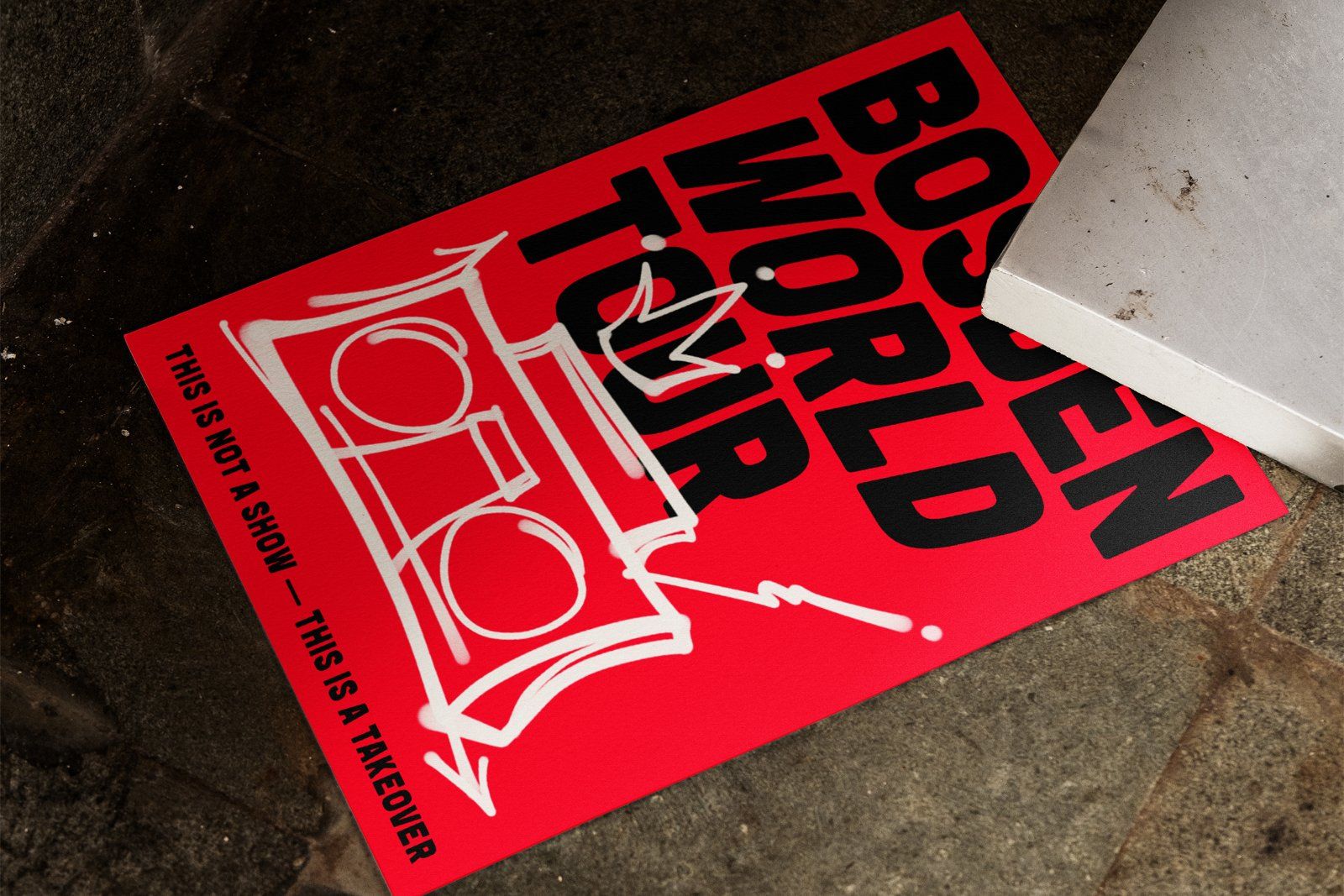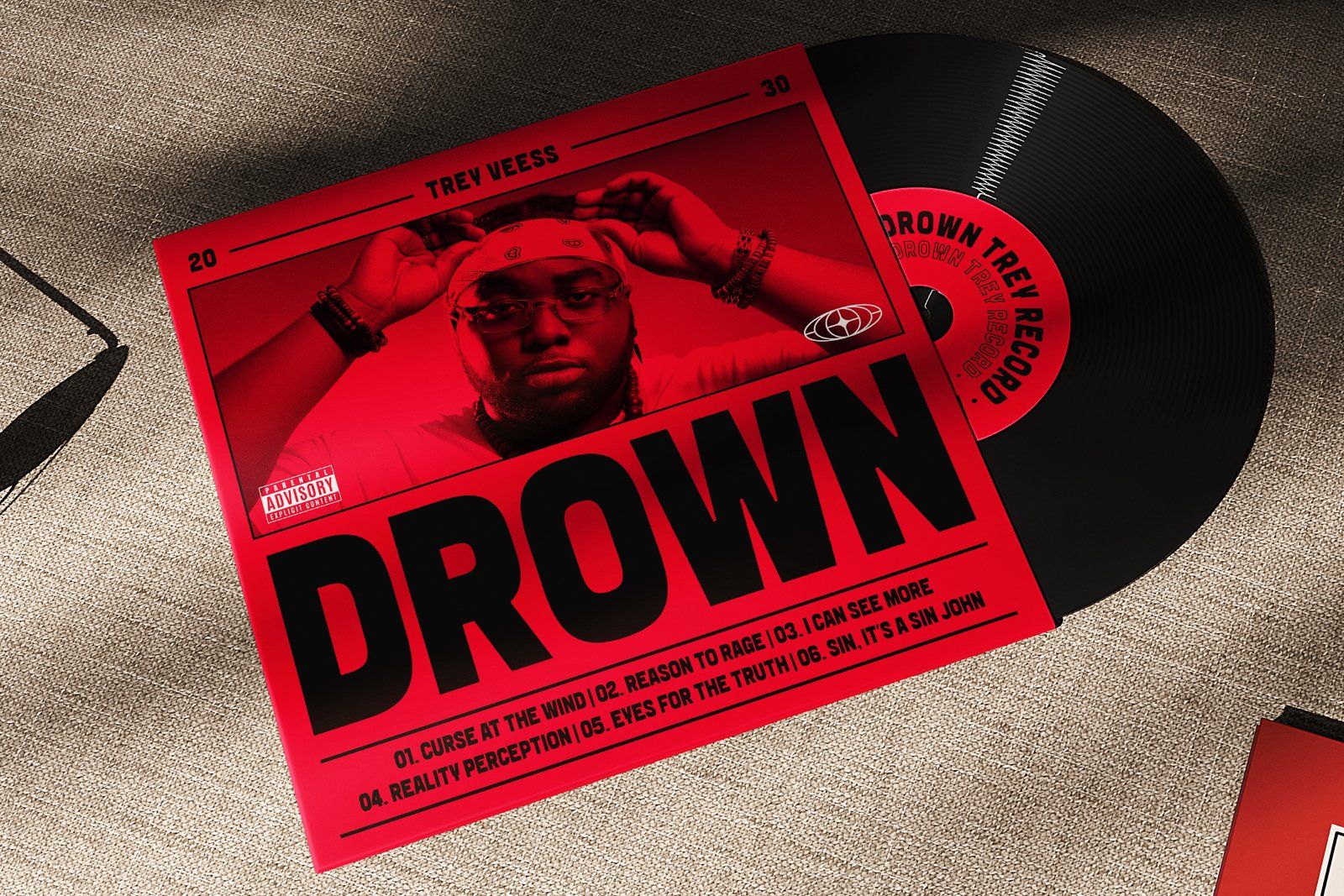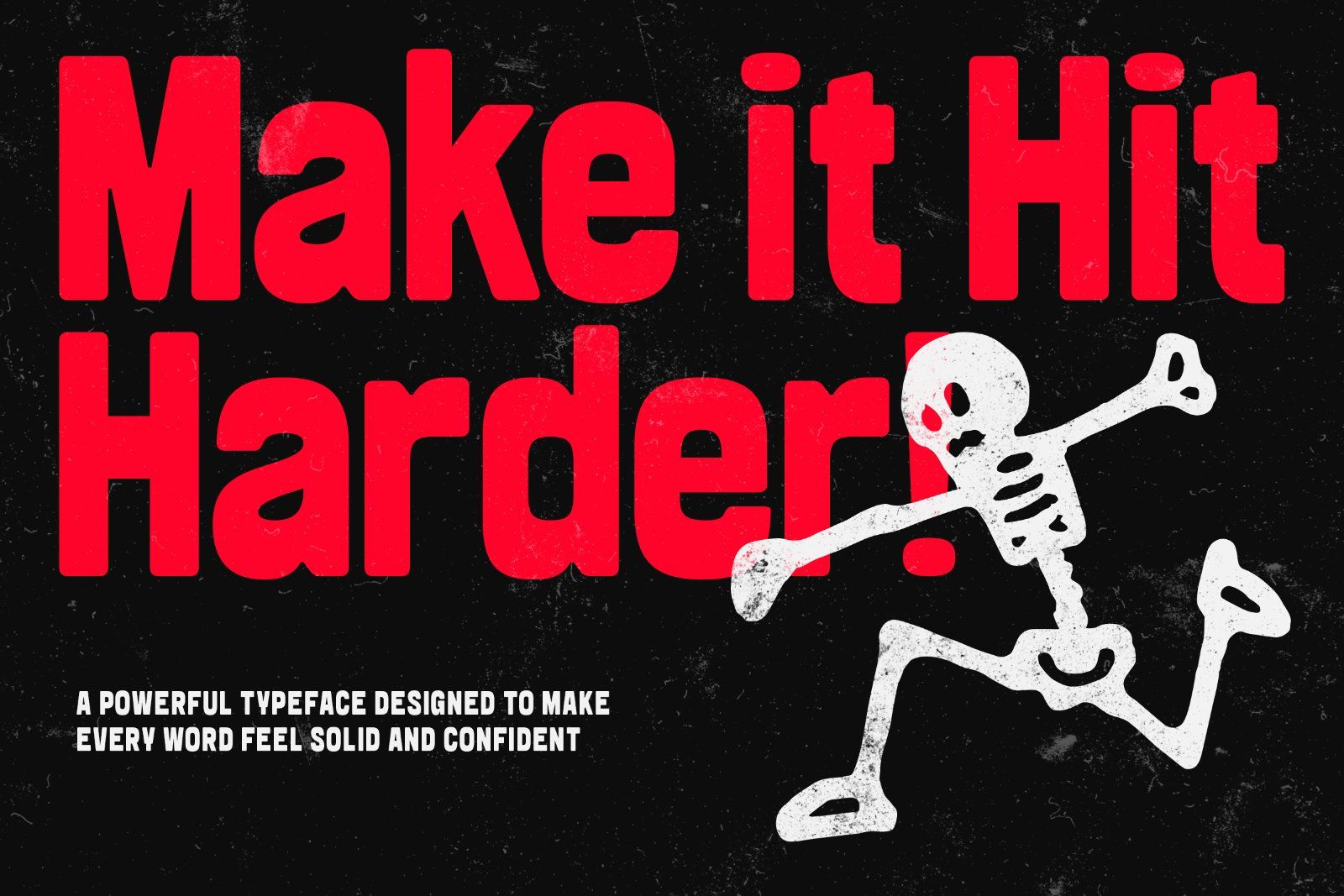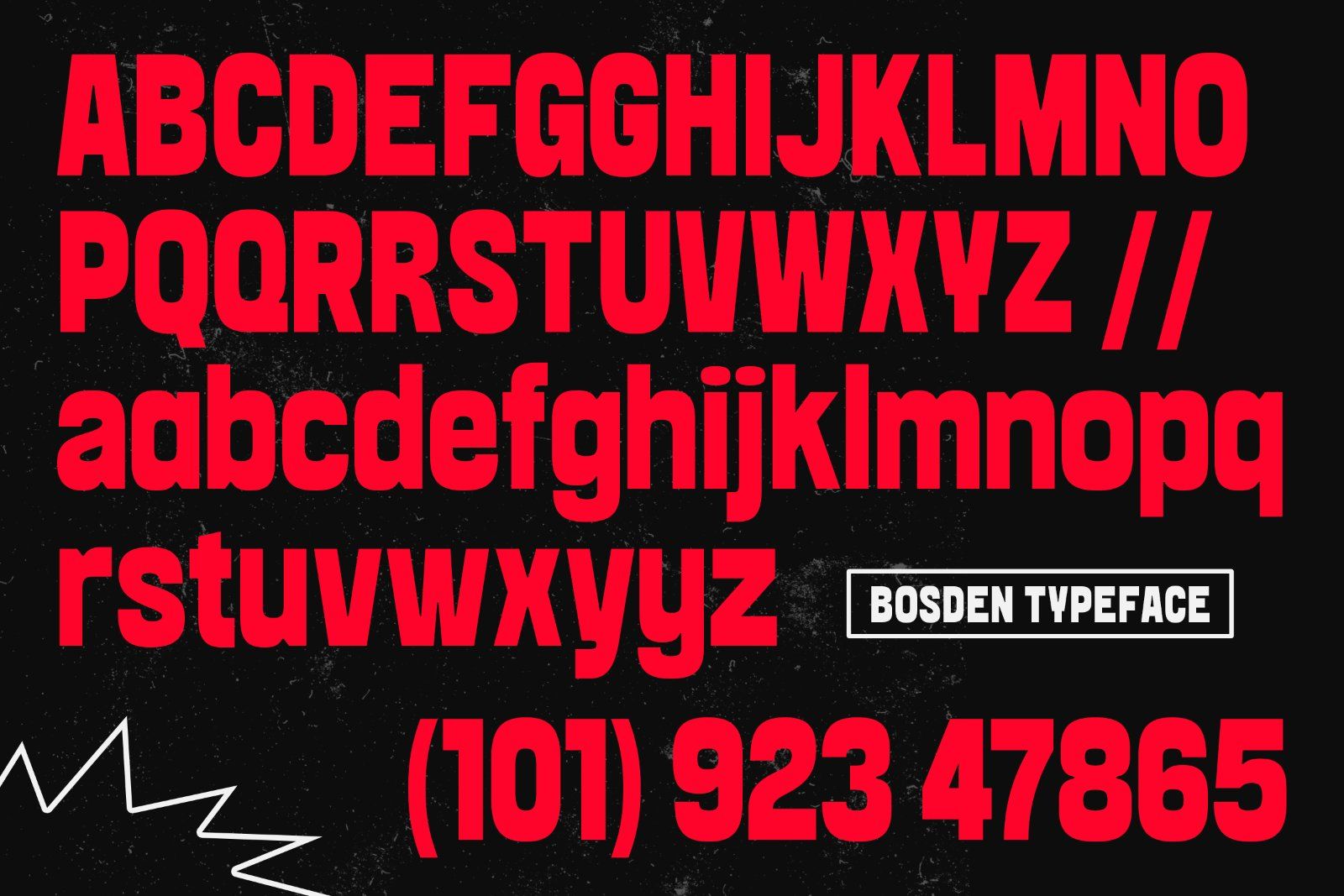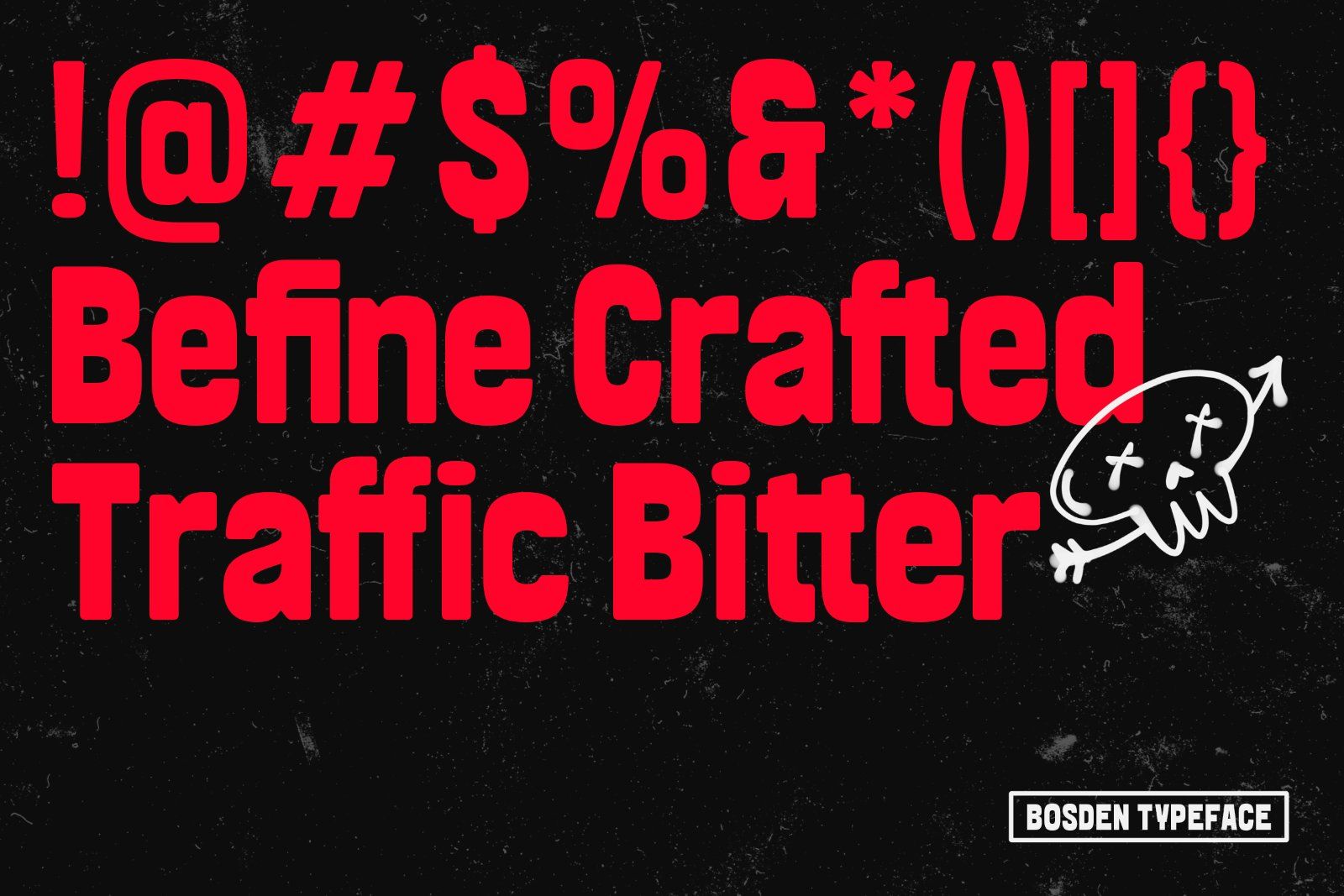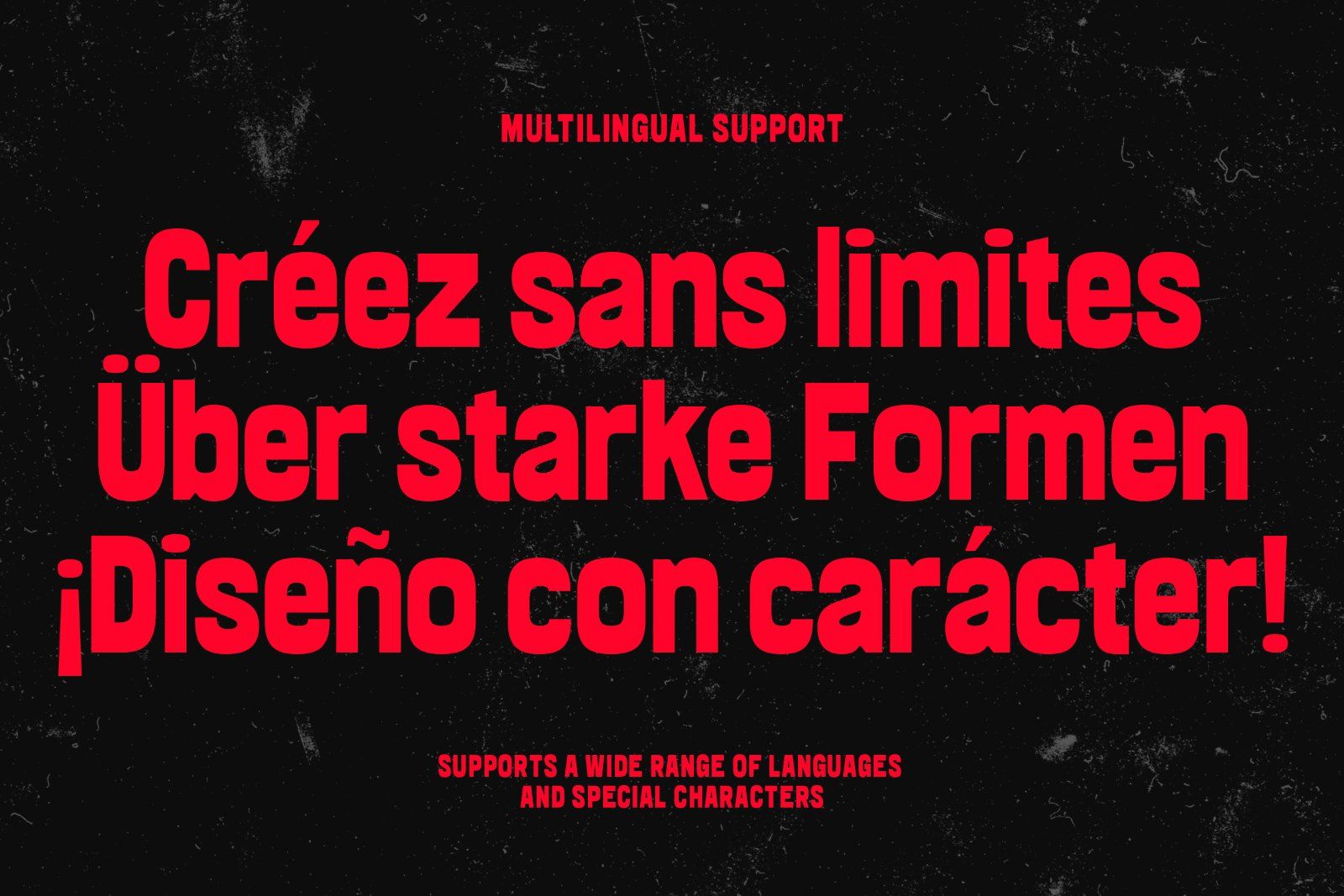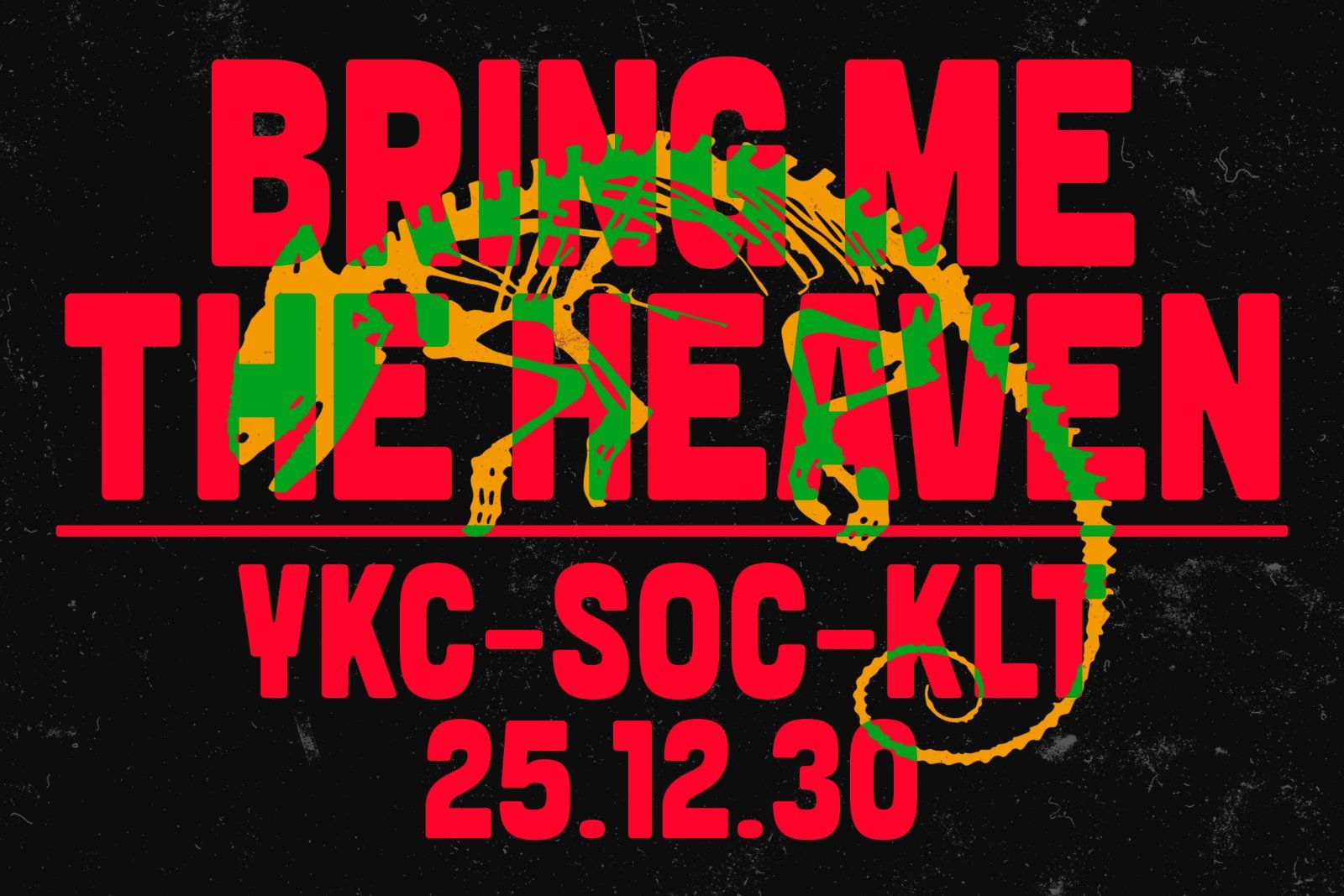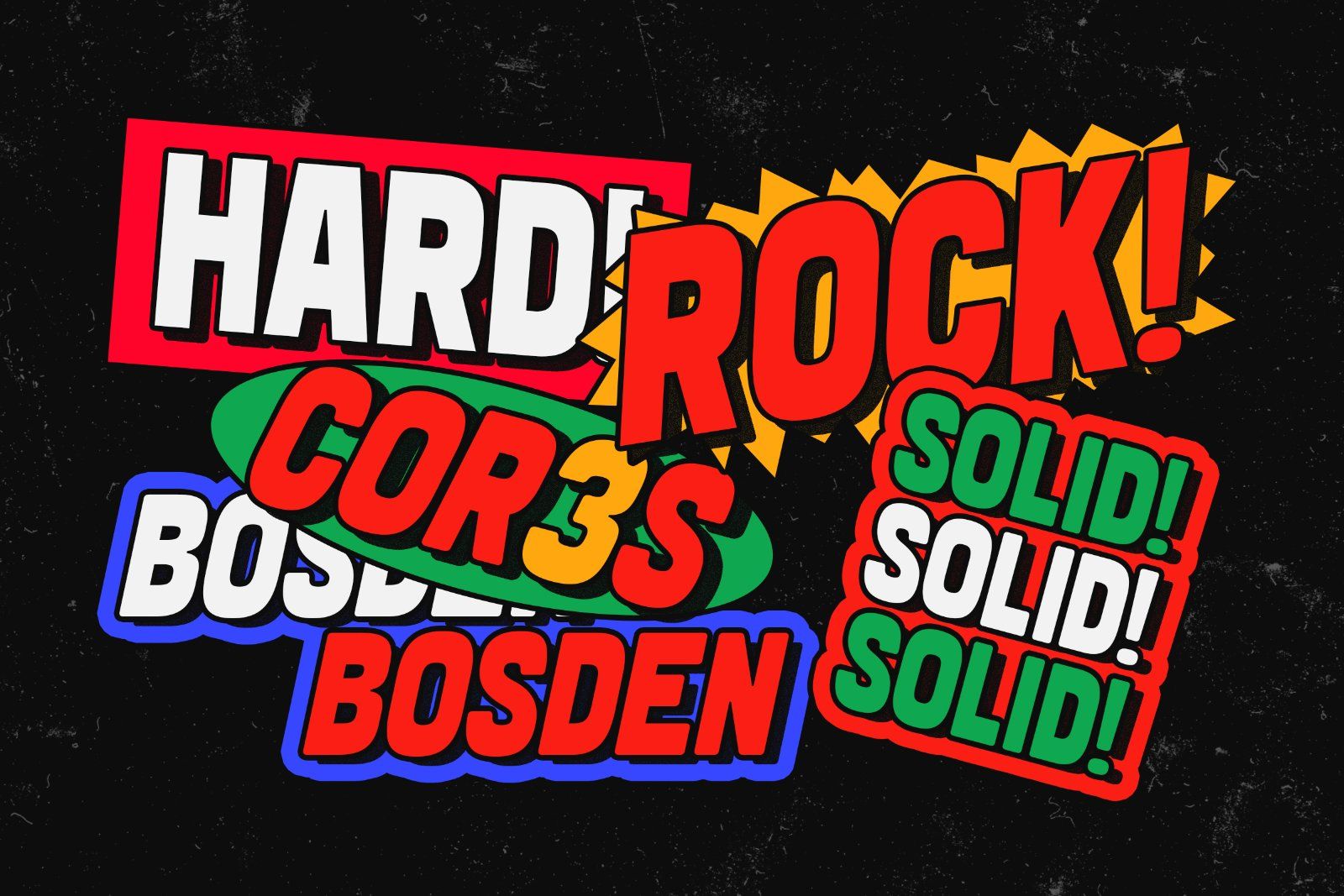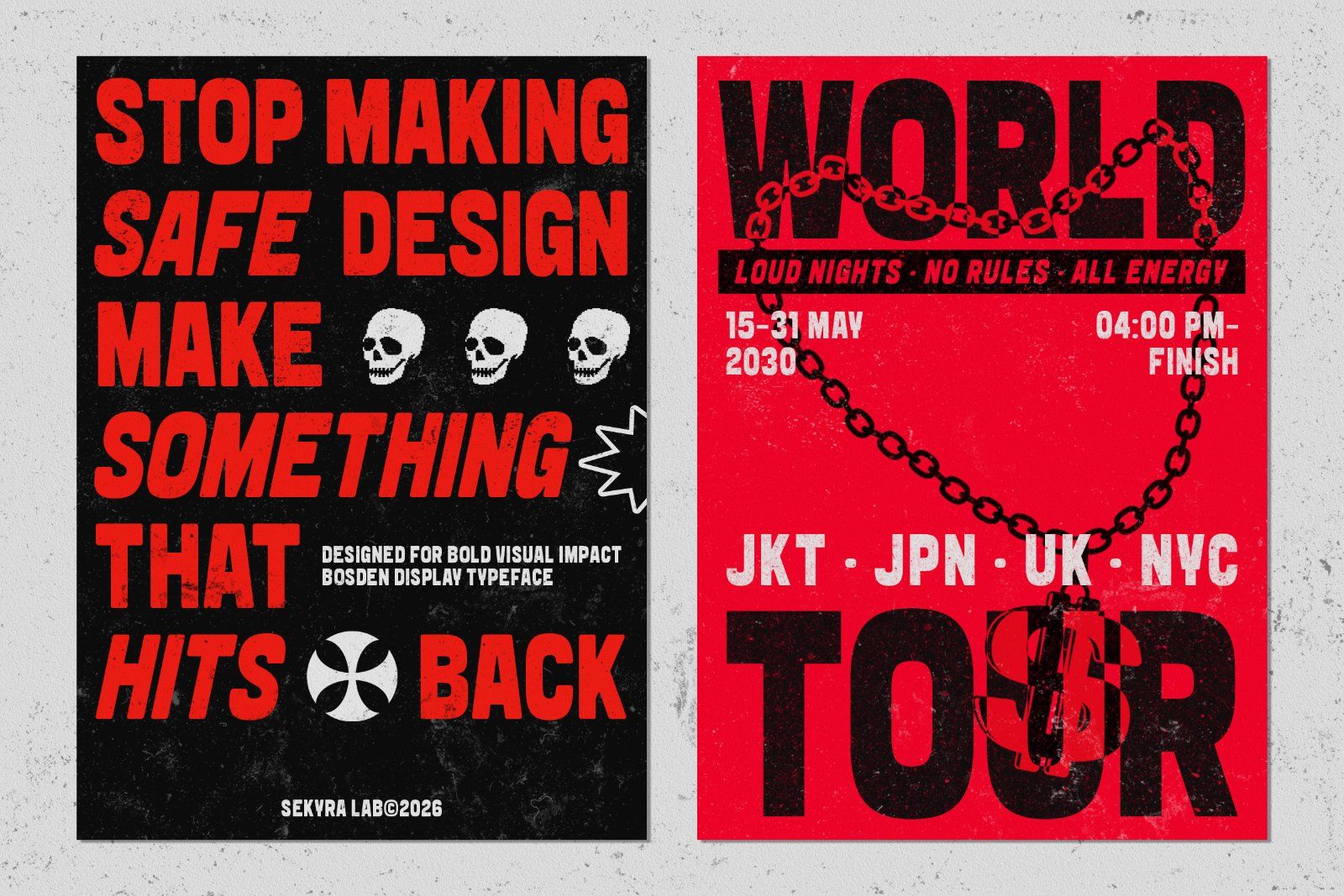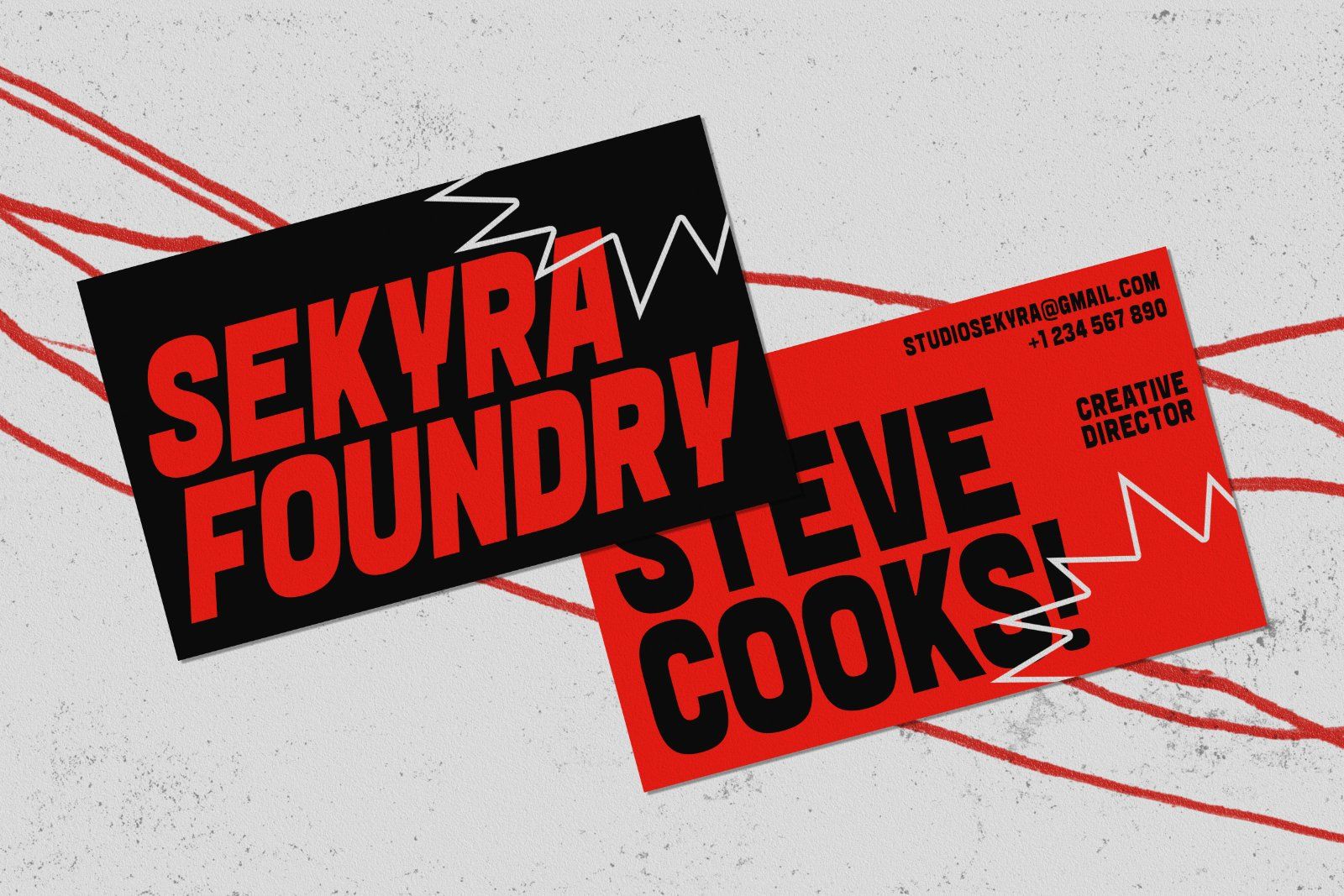
Bosden is a bold and powerful display sans serif designed to deliver strong visual impact and confident presence. With its condensed proportions, solid structure, and clean geometric forms, Bosden is built for designs that need to stand out and hit hard.
This typeface comes with four versatile styles: Regular, Rounded, Oblique, and Rounded Oblique. From sharp and solid to smooth and dynamic, Bosden gives you the flexibility to explore different tones while maintaining a consistent bold identity.
Whether you’re creating posters, branding, streetwear graphics, music artwork, or editorial layouts, Bosden ensures your typography feels loud, clear, and unapologetically strong.
Its clean and modern construction combined with expressive weight makes it perfect for high-impact visuals, urban design aesthetics, and contemporary creative projects.
• 4 Styles (Regular, Rounded, Oblique, Rounded Oblique)
• Support for 91 languages